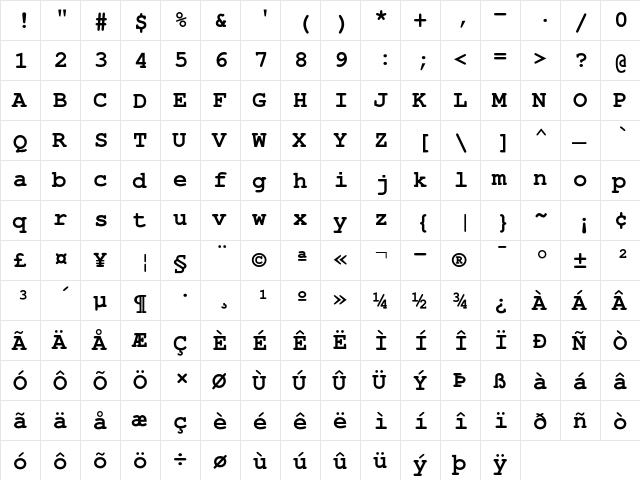
Nimbus Mono Bold
| Foundry | (URW)++ Design & Development |
Design Context for Nimbus Mono Typeface
Nimbus Mono brings the precise, column-aligned rhythm of monospaced typography to designs that value technical clarity and systematic order. The heavy weight commands attention and anchors typographic hierarchies.
Well-suited to data-driven dashboards, coding tutorials, and any design that wants to reference the world of programming.
Pro Tip: Use Nimbus Mono with slightly increased line-height for extended reading — fixed-width spacing can feel dense in longer passages without extra breathing room.